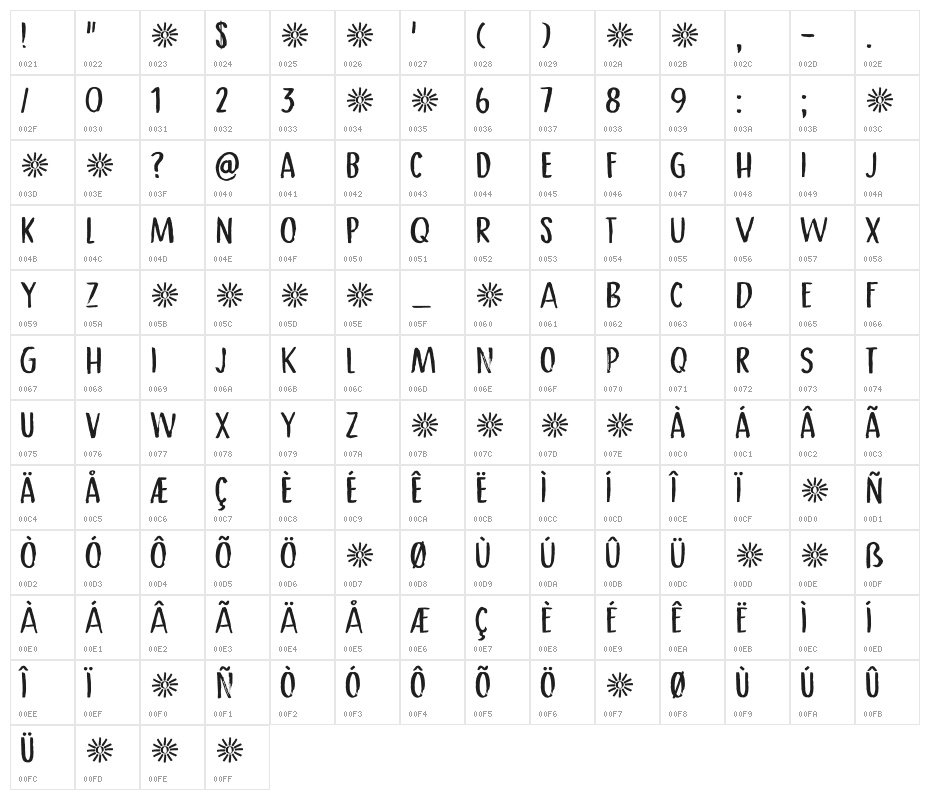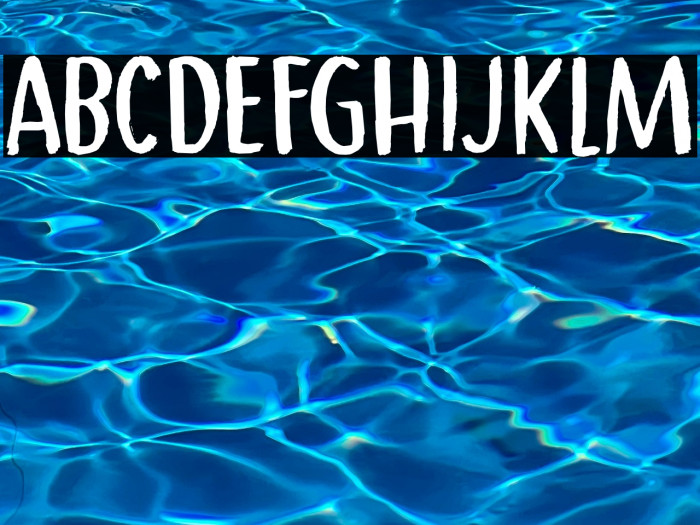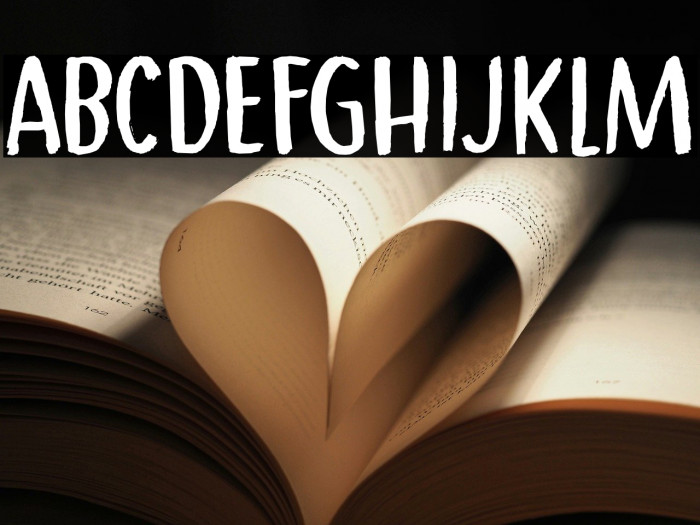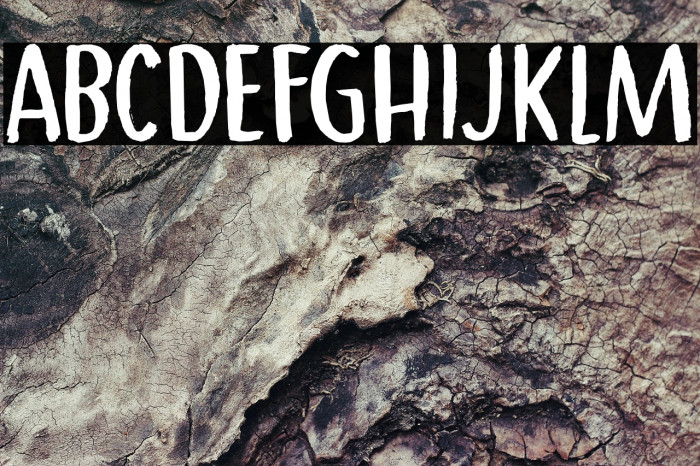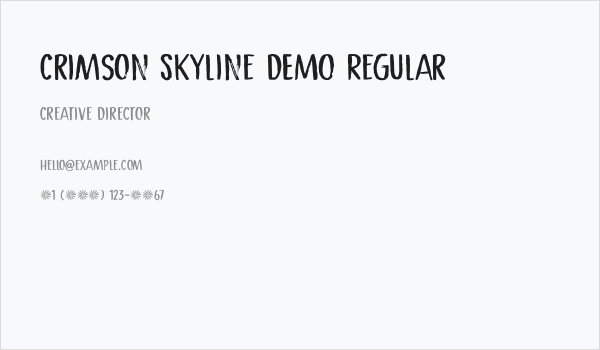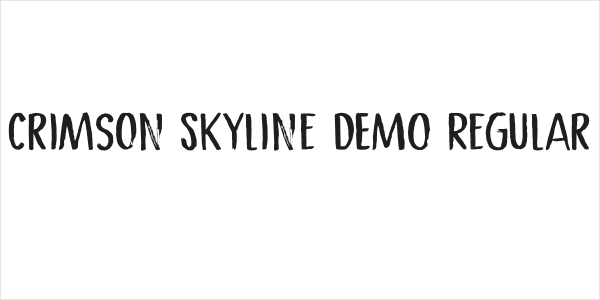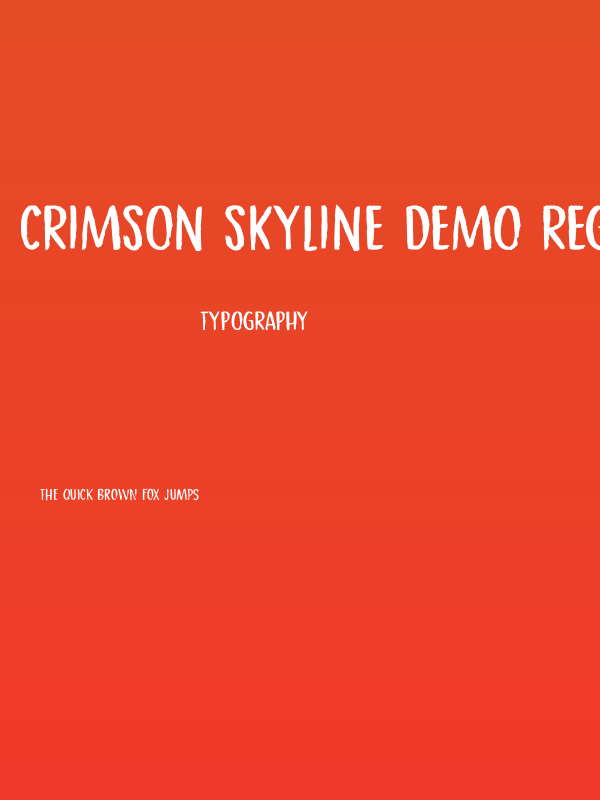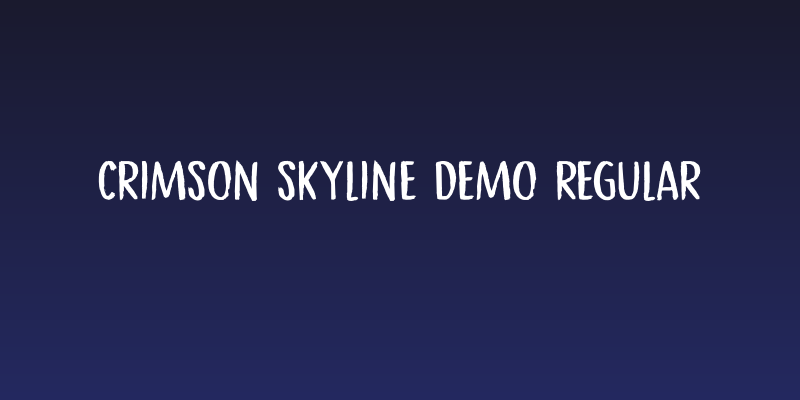
Crimson Skyline DEMO Regular Font
Crimson Skyline DEMO Regular Description
This font features a bold, brush-like style that exudes a sense of energy and creativity. The characters are hand-drawn with irregular strokes, giving it a dynamic and artistic appearance. The uppercase letters are tall and slightly narrow, while the lowercase letters maintain a consistent flow with a playful touch. Numbers and special characters follow the same expressive style, making them stand out. The overall design is reminiscent of a handcrafted sign, perfect for projects that require a personal and artistic flair.
| Overall Style | Artistic, Creative |
| Use Case | Headlines, Posters, Branding |
| Proposed Projects | Ideal for creative projects such as posters, branding, and artistic invitations where a personal touch is desired. |